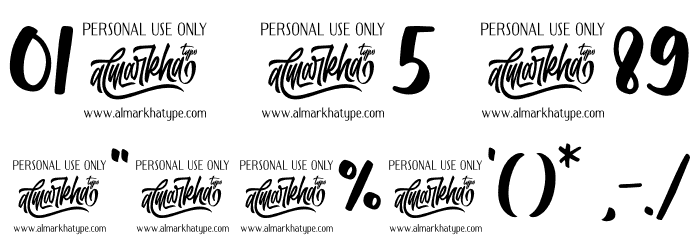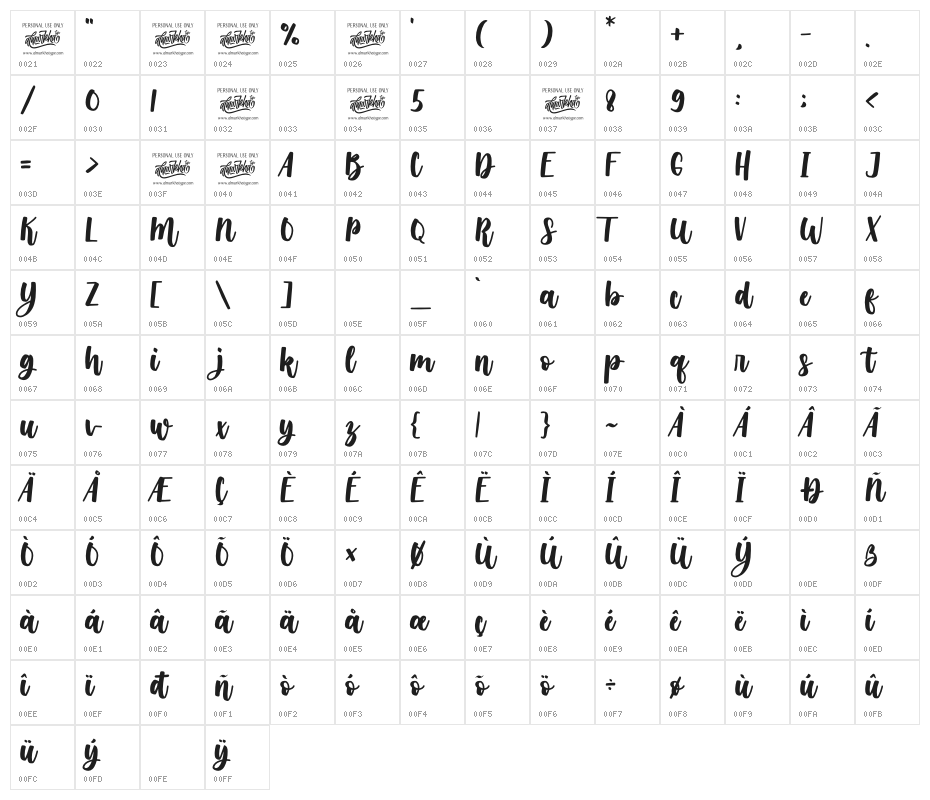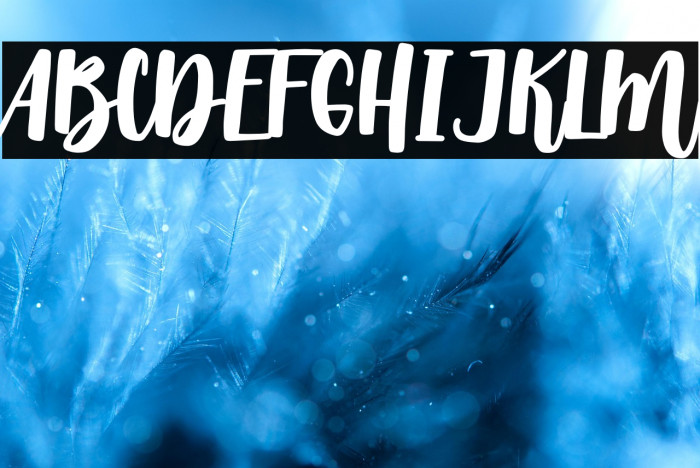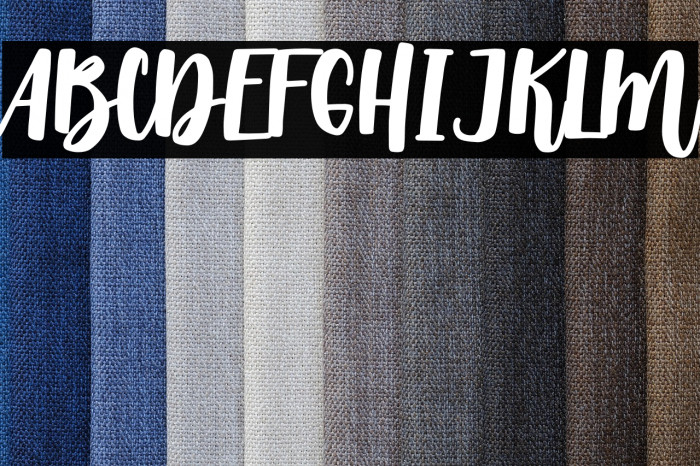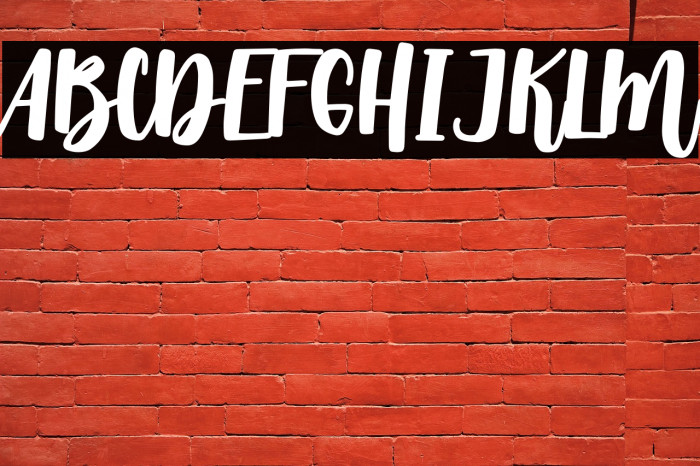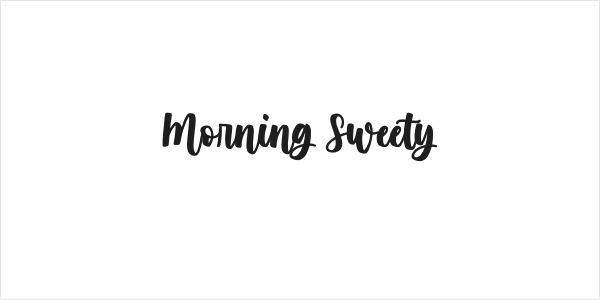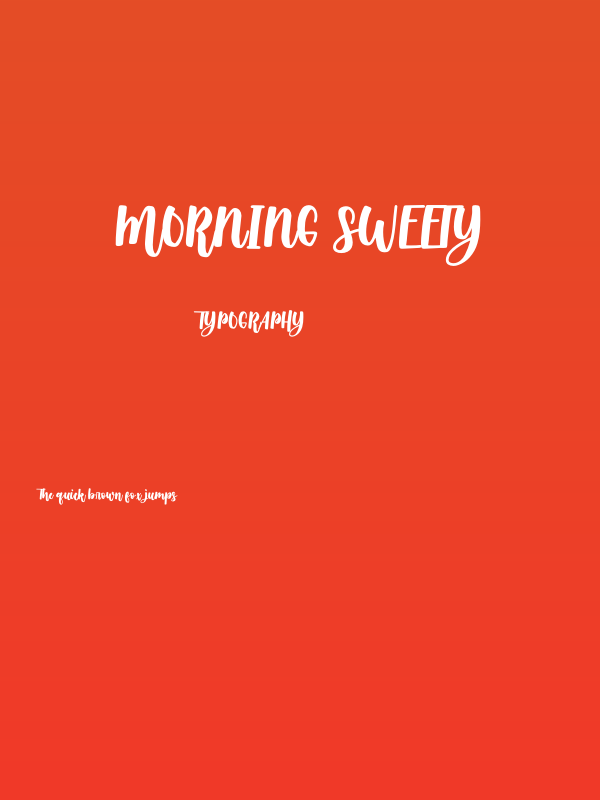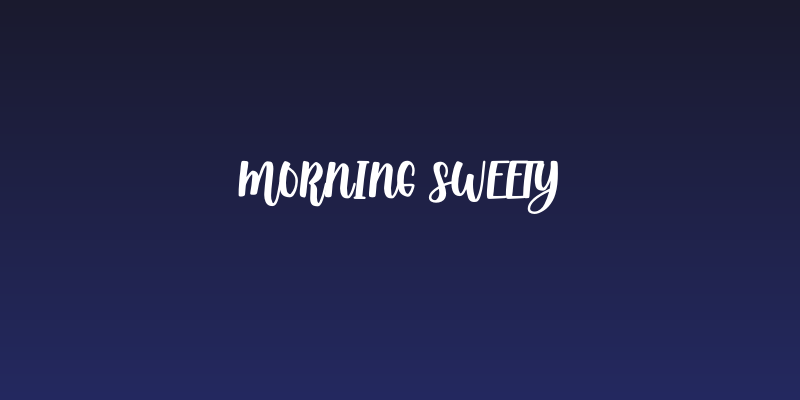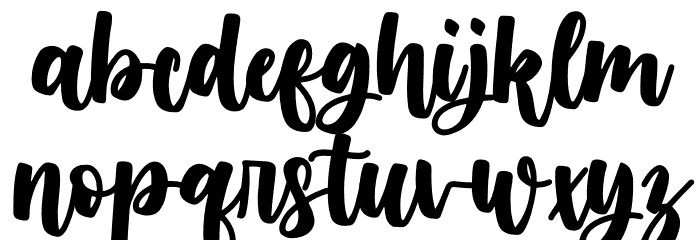
Morning Sweety Font
Morning Sweety Description
This font features a playful and modern script style with a handwritten appearance. The letters are bold and have a smooth, flowing quality, giving them a lively and dynamic feel. The uppercase letters are tall and slightly narrow, while the lowercase letters are more rounded and connected, enhancing the script's fluidity. The numbers and special characters maintain the same energetic style, making them suitable for creative and informal designs. The overall look is both elegant and approachable, perfect for adding a personal touch to any project.